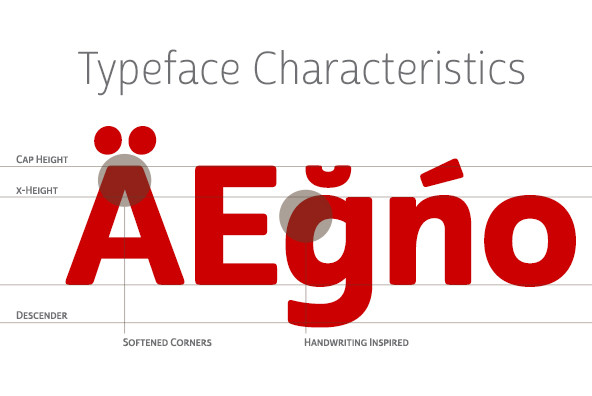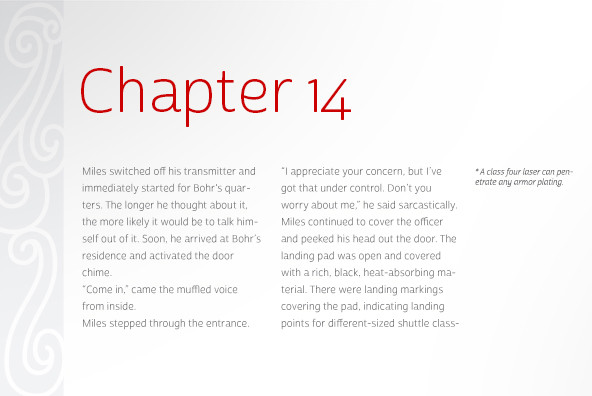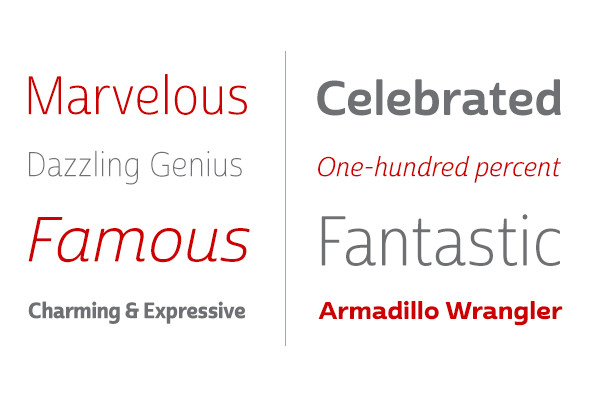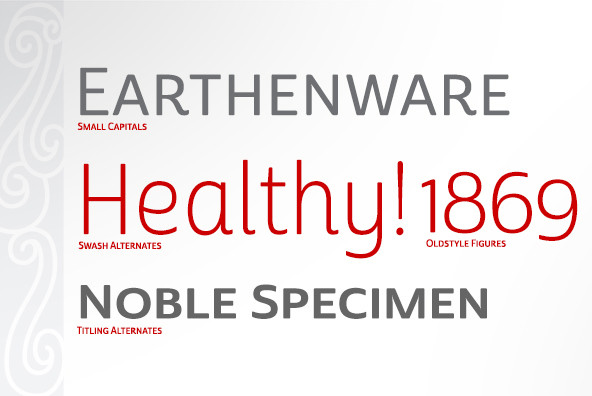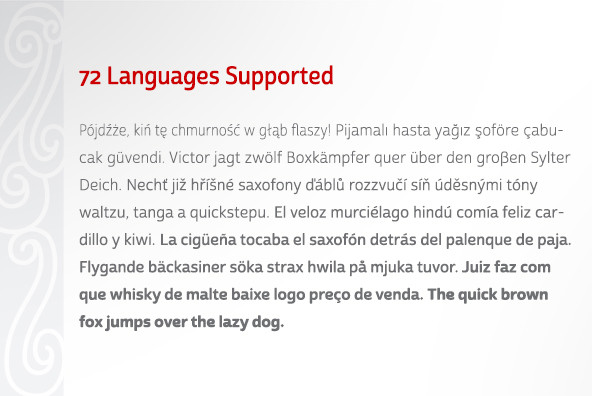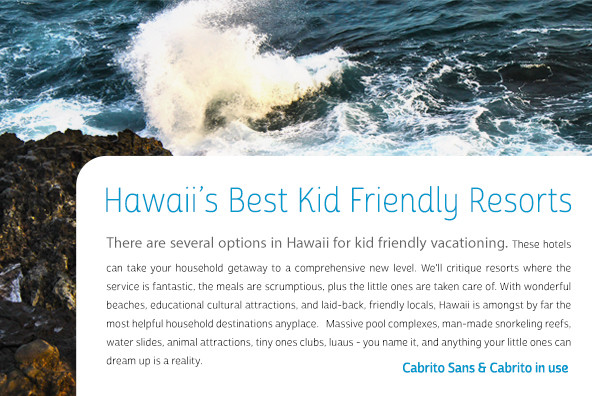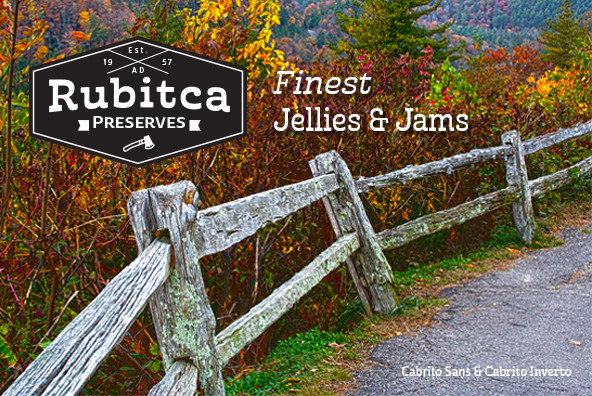
A quick recap: the original Cabrito is an insigne Design slab serif produced for the kid’s book The Clothes Letters Wear. It’s been pretty well-received--even more than I expected. I promised to grow the family with a free-standing inverted style that could pair well with Cabrito. (See Cabrito Inverto.) Now, I’m rounding out the family with this well-crafted sans.
And so now, Sans is where it’s at. Strip away the serifs of Cabrito, and you have a laid back, rounded sans serif alternative served up over easy. This handwriting-inspired creation--like its relatives--is definitely not uptight about its forms (though not afraid to show them off a little).
Cabrito Sans’ whole pack of alternates is accessible in any OpenType-enabled program. This kiddo consists of a workforce of alternates, swashes, and alternate titling caps to give the font a little extra sweetener to its flavor. Also bundled are swash alternates, old style figures, and compact caps. Check out the interactive PDF brochure to test out each these options. This font family members also consists of the glyphs for 72 various languages.
Cabrito Inverto and Cabrito do pair nicely with Cabrito Sans (in case you doubted). Use Sans--or all three of these amigos--to express friendliness on just about anything: food, candy, toys, cars (if you’re feeling bold). Don’t wait, though. Purchase Cabrito Sans today, and bring a one-of-a-kind look to whatever your computer’s next design party is.